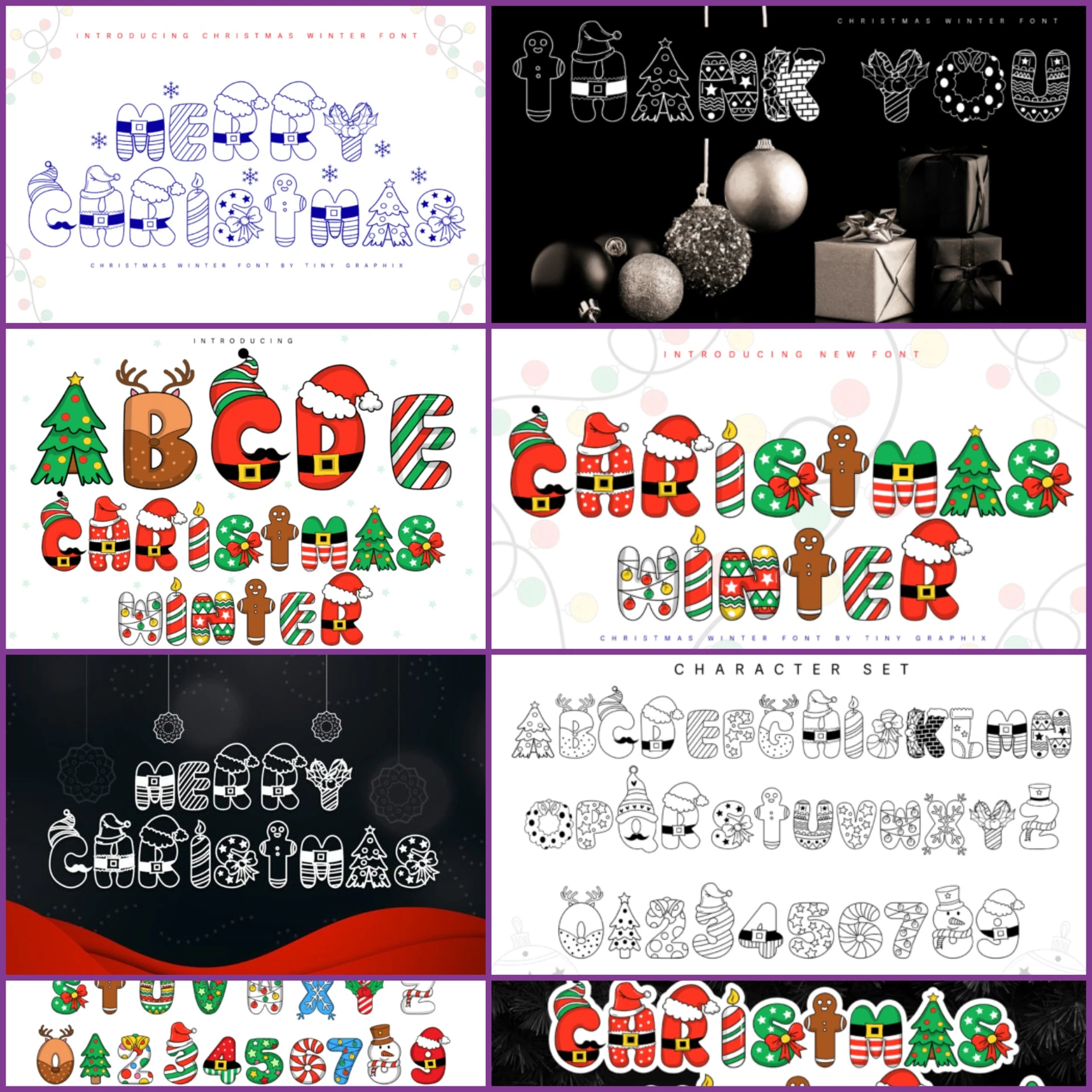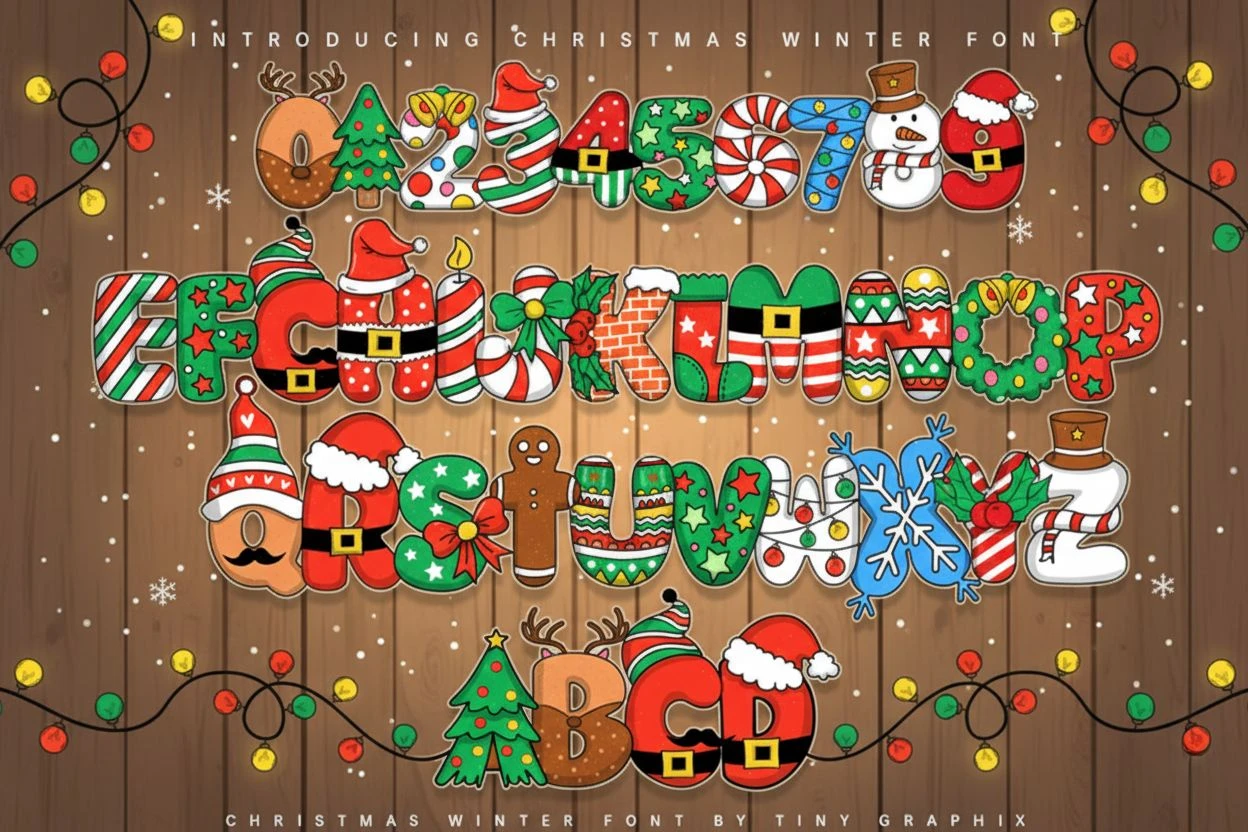
Christmas Winter is a festive and heartwarming holiday font designed to bring the magic of Christmas to all your seasonal projects. This handcrafted typeface features playful shapes, cozy winter charm, and a joyful personality—making it perfect for creating warm and cheerful holiday designs.
Use Christmas Winter for Christmas cards, gift tags, banners, invitations, T-shirt designs, sublimation projects, social media posts, marketing materials, stickers, printables, and home decor. Its friendly handcrafted style adds an extra layer of holiday spirit to every creation.
Whether you’re preparing Christmas crafts for Cricut or designing festive branding, Christmas Winter spreads joy, warmth, and the true feeling of the holiday season. It’s the ideal choice for Christmas quotes, winter lettering, seasonal graphics, and creative Christmas designs.